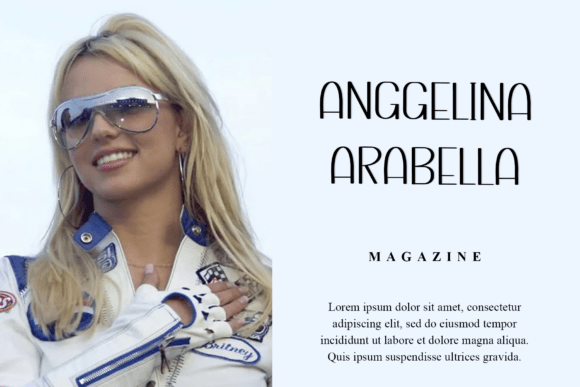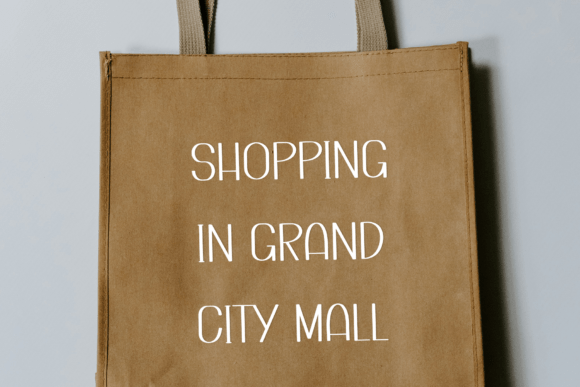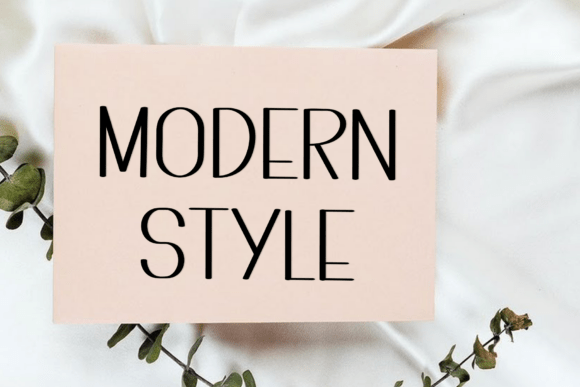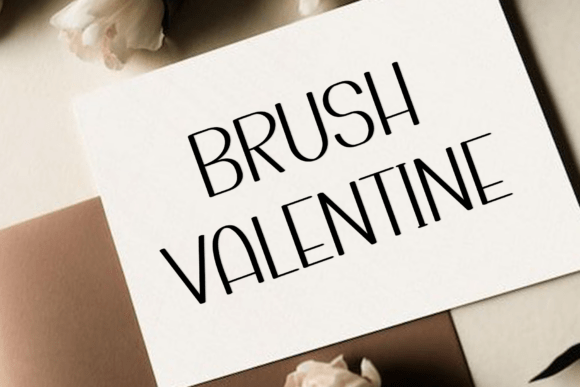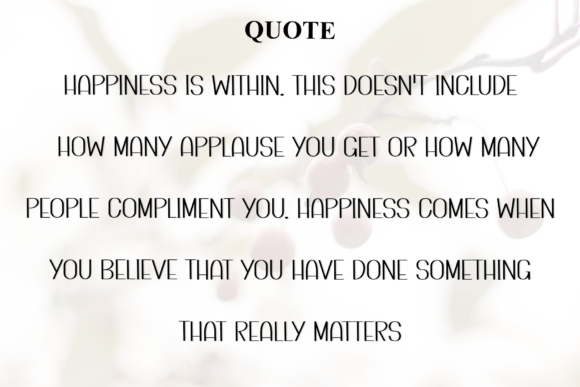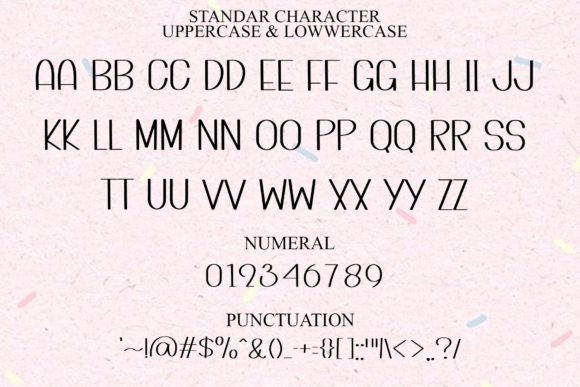
Fantasy Stories Font: Adding a Touch of Whimsy to Your Designs
Are you tired of using the same old fonts in your designs? Do you want to add a touch of personality and whimsy to your projects? Look no further than the Fantasy Stories font, a casual and creative typeface that exudes warmth and friendliness. In this article, we’ll take a closer look at the Fantasy Stories font, its features, and how you can use it to elevate your designs.
The Charm of Fantasy Stories Font
Fantasy Stories font is a hand-drawn typeface that boasts round, playful strokes, creating a relaxed and approachable feel. Its charming aesthetic adds a fun and unique touch to any design, making it perfect for personal projects, invitations, social media graphics, and more. Whether you’re a designer, crafter, or simply a DIY enthusiast, this font is sure to delight.
Key Features of Fantasy Stories Font
- Hand-Drawn Aesthetic: The font’s hand-drawn design gives it a unique, personalized feel that’s perfect for adding a touch of whimsy to your designs.
- Playful Strokes: The round, playful strokes of Fantasy Stories font create a relaxed and approachable feel, making it ideal for designs that require a friendly tone.
Uses for Fantasy Stories Font
Fantasy Stories font is versatile and can be used in a variety of design projects, including:
- Personal Projects: Add a touch of personality to your personal projects, such as photo albums, scrapbooking, or handmade cards.
- Invitations: Create eye-catching invitations for parties, weddings, or other special events.
- Social Media Graphics: Use Fantasy Stories font to create engaging social media graphics, such as quote graphics, promotional images, or Facebook posts.
- Crafting Projects: Add a touch of whimsy to your crafting projects, such as knitting patterns, sewing projects, or paper crafting.
Tips for Using Fantasy Stories Font
Here are some tips for getting the most out of Fantasy Stories font:
- Pair with Other Fonts: Experiment with pairing Fantasy Stories font with other fonts to create a unique and visually appealing design.
- Use in Headings: Use Fantasy Stories font in headings or titles to add a touch of personality to your design.
Fantasy Stories font is a charming and creative typeface that’s perfect for designers, crafters, and DIY enthusiasts. Its hand-drawn aesthetic, playful strokes, and PUA Encoded glyphs make it a versatile and user-friendly font that’s suitable for a wide range of design projects. Whether you’re looking to add a touch of whimsy to your personal projects or create eye-catching social media graphics, Fantasy Stories font is sure to delight. So why not give it a try and see how it can elevate your designs?